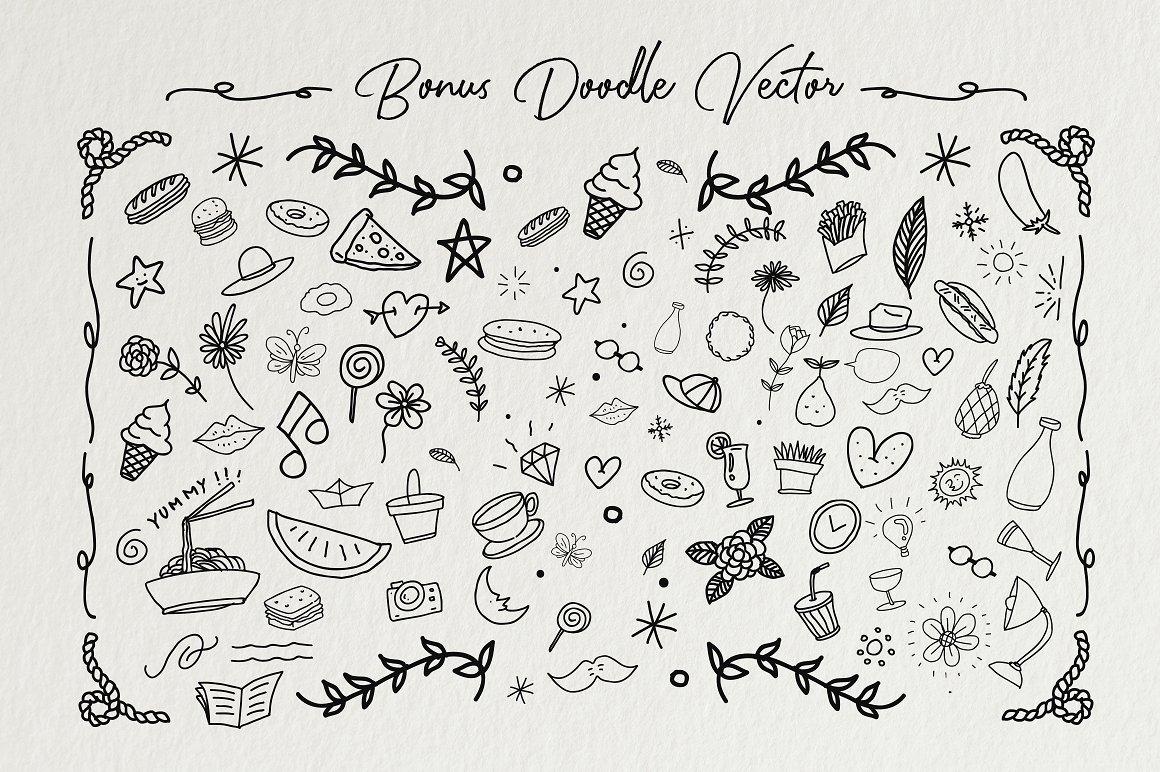
Weyouth Script
Weyouth Script Font
Thanks for checking out Weyouth script ! A fabulously fun yet elegant script font with tons of energy, allowing you to create beautiful hand-made typography in an instant. With extra vector doodle, weyouth Script is guaranteed to make your text stand out – perfect for logos, printed quotes, invitations, cards, product packaging, headers and whatever your imagination holds.